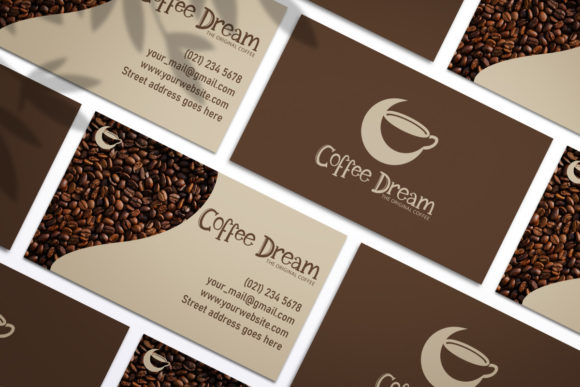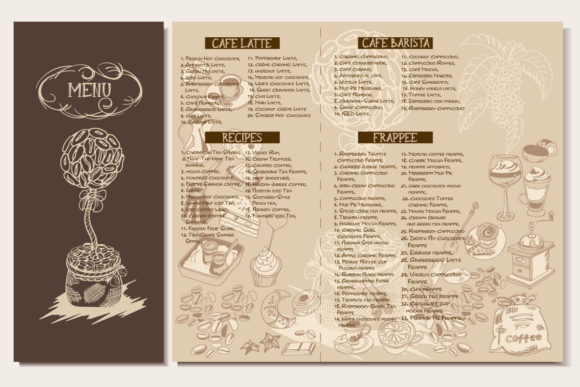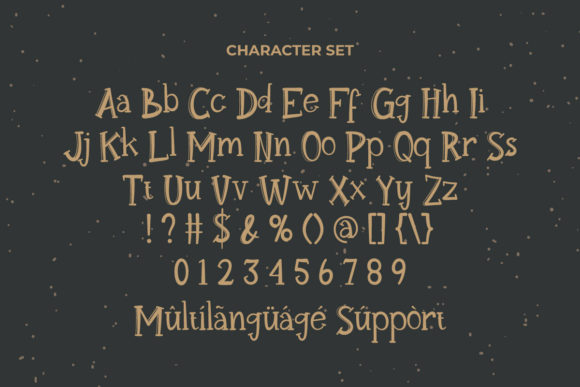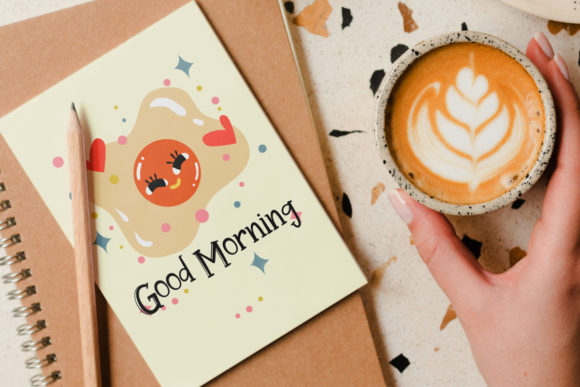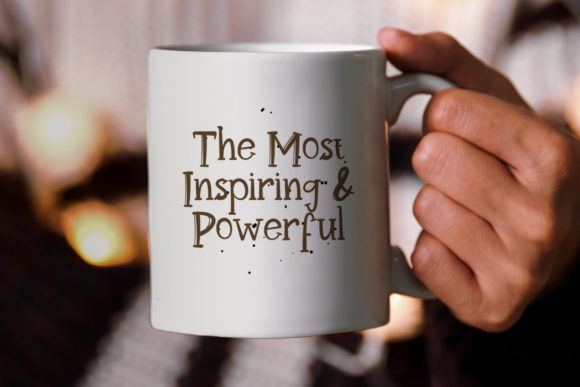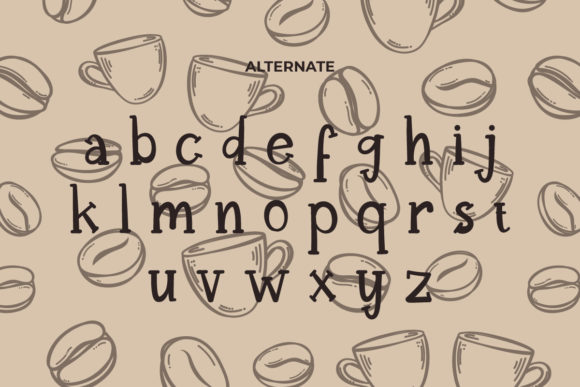
Coffee Dream Font: Elevate Your Designs with a Handwritten Touch
In the world of design, fonts play a crucial role in conveying the message and aesthetic of a brand or project. For those seeking a unique and personal touch, the Coffee Dream Font is an excellent choice. This simple textured display font boasts casual letter shapes that will give your design an original handwritten look, perfect for making a lasting impression.
What is Coffee Dream Font?
Coffee Dream Font is a carefully crafted typeface designed to bring a sense of warmth and personality to your designs. Its casual and approachable lettering style makes it an ideal choice for a wide range of applications, from business cards and product packaging to signage, quotes, titles, and more.
Key Features of Coffee Dream Font
- Simple Textured Display Font: Coffee Dream Font features a simple yet textured design that adds depth and character to your text.
- Casual Letter Shapes: The font’s casual letter shapes give it a friendly and approachable feel, perfect for designs that require a personal touch.
- Readable, Smart, and Stylish: Despite its casual appearance, Coffee Dream Font is highly readable, making it suitable for both digital and print applications.
- Versatile: This font can be used for a variety of design projects, including business cards, product packaging, signage, quotes, titles, and more.
Why Choose Coffee Dream Font?
With so many fonts available, why choose Coffee Dream Font? Here are a few compelling reasons:
- Unique Handwritten Look: Coffee Dream Font offers a distinctive handwritten look that will set your designs apart from the crowd.
- Ease of Use: The font’s simplicity and readability make it easy to use, even for those without extensive design experience.
- Time-Saving: With Coffee Dream Font, you can create professional-looking designs quickly and efficiently, saving you time and effort.
Design Applications for Coffee Dream Font
Coffee Dream Font is an incredibly versatile typeface that can be used in a wide range of design applications, including:
- Business Cards: Add a personal touch to your business cards with Coffee Dream Font, making a lasting impression on potential clients and customers.
- Product Packaging: Use Coffee Dream Font to create eye-catching product packaging that stands out on store shelves.
- Signage: This font is perfect for creating signs, banners, and posters that require a friendly and approachable tone.
- Quotes and Titles: Coffee Dream Font is ideal for highlighting quotes, titles, and headings in your designs, adding a touch of elegance and sophistication.
Tips for Using Coffee Dream Font
To get the most out of Coffee Dream Font, here are a few tips to keep in mind:
- Experiment with Colors: Coffee Dream Font looks great in a variety of colors, so don’t be afraid to experiment and find the perfect hue for your design.
- Play with Sizes: This font is highly legible, even at small sizes, so feel free to experiment with different font sizes to create visual interest.
- Combine with Other Fonts: Coffee Dream Font pairs well with other fonts, so try combining it with a sans-serif font for added contrast and visual appeal.
Coffee Dream Font is a simple yet powerful typeface that can elevate your designs with its unique handwritten look. With its casual letter shapes, readability, and versatility, this font is perfect for designers and crafters looking to add a personal touch to their projects. Whether you’re creating business cards, product packaging, signage, or quotes, Coffee Dream Font is an excellent choice.